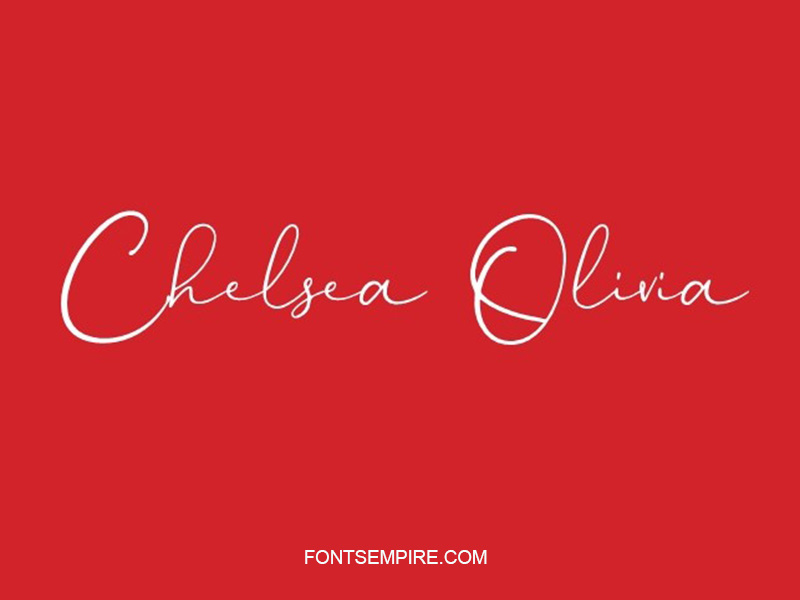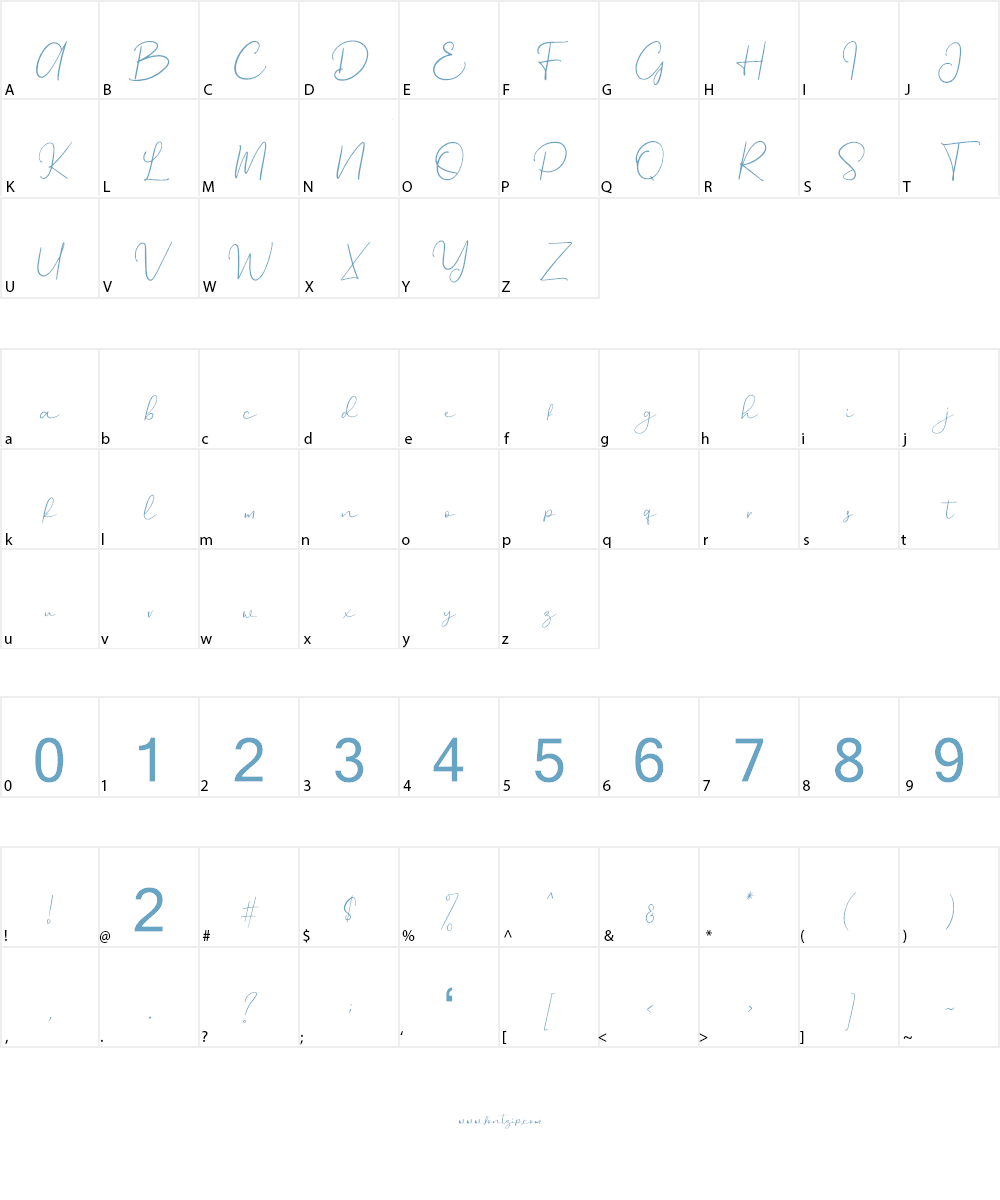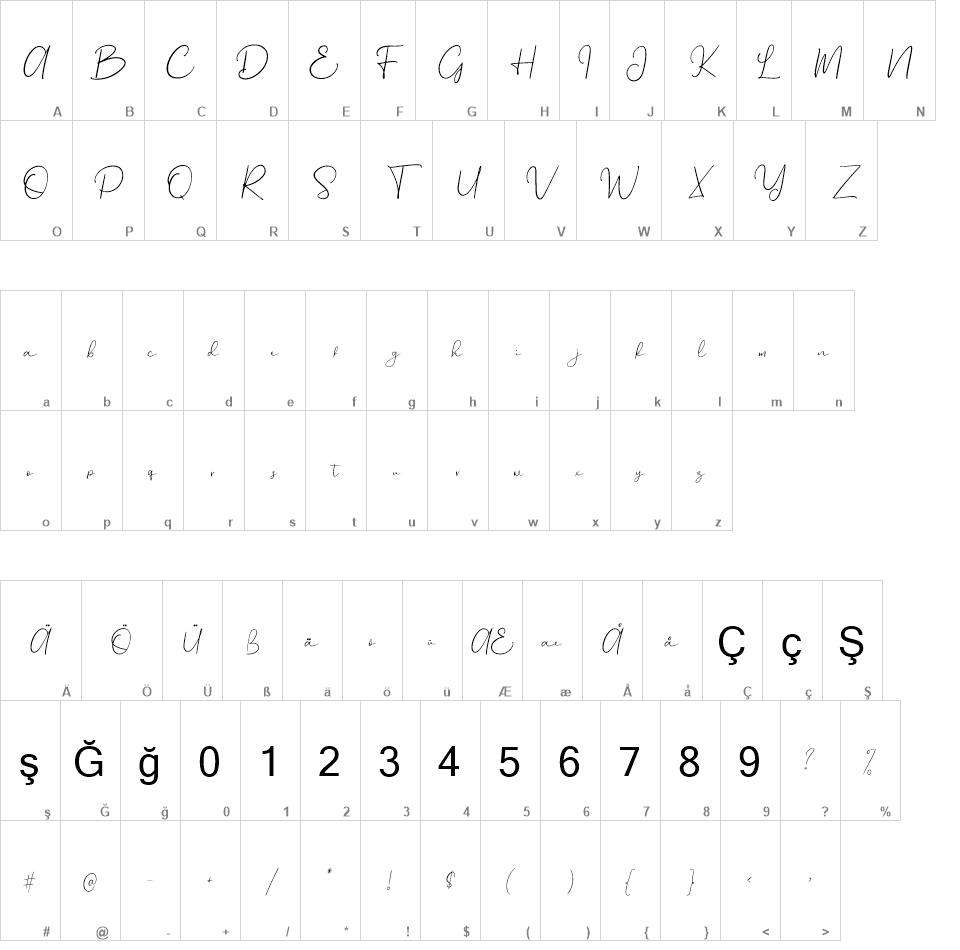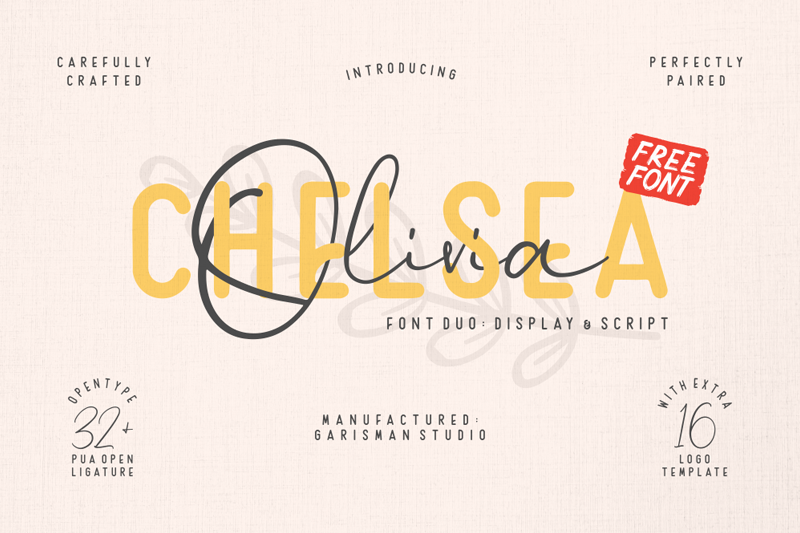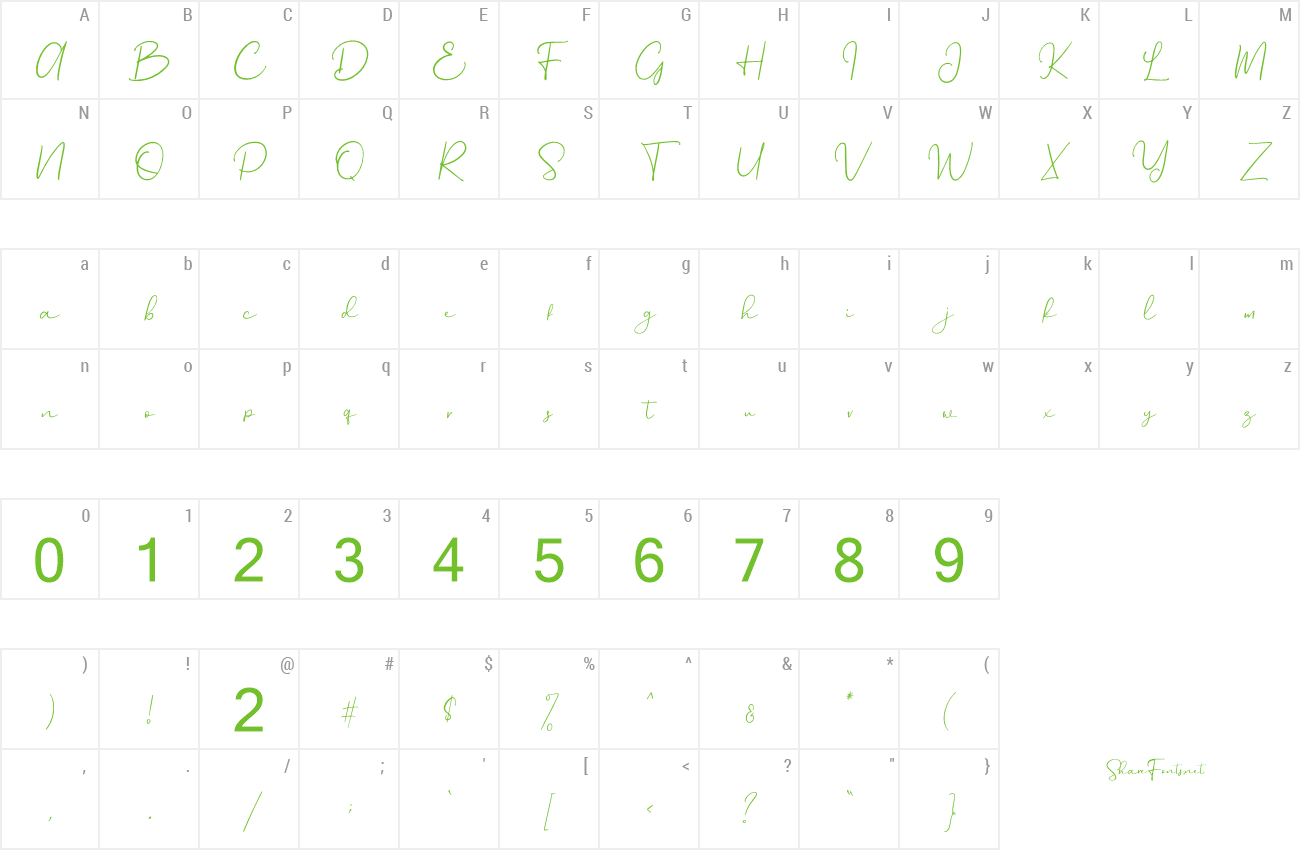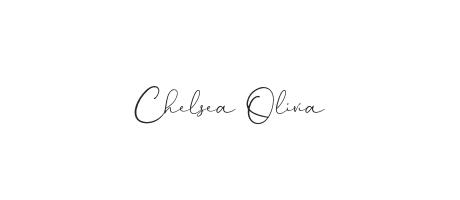
Chelsea Olivia Font
Chelsea olivia font. A warm duo of fonts in front of you. And releasing it for the first time via garisman studio on 19th april 2019. This is a super duo with lots of ligature. This is a super duo with lots of ligature.
Welcome to chelsea olivia font duo. A warm duo of fonts in front of you. Ad by garisman studio. It is design and shared by garisman std.
In addition to being a very good font it has a number of distinguished and unbelievable qualities. This is perfect for logos including 16 pre made logos and you can edit them again wedding invitations easter posters business cards logos headlines instagram stories youtube stories book cover poster promotion and many more. An indonesian font designer mr risman ginarwan took the charge for designing it. Download chelsea olivia font for pcmac for free take a test drive and see the entire character set.
Submit a font tools. Please use the pulldown menu to view different character maps contained in this font. Chelsea olivia font is a script handwritten font that contains a clean and clear texture.